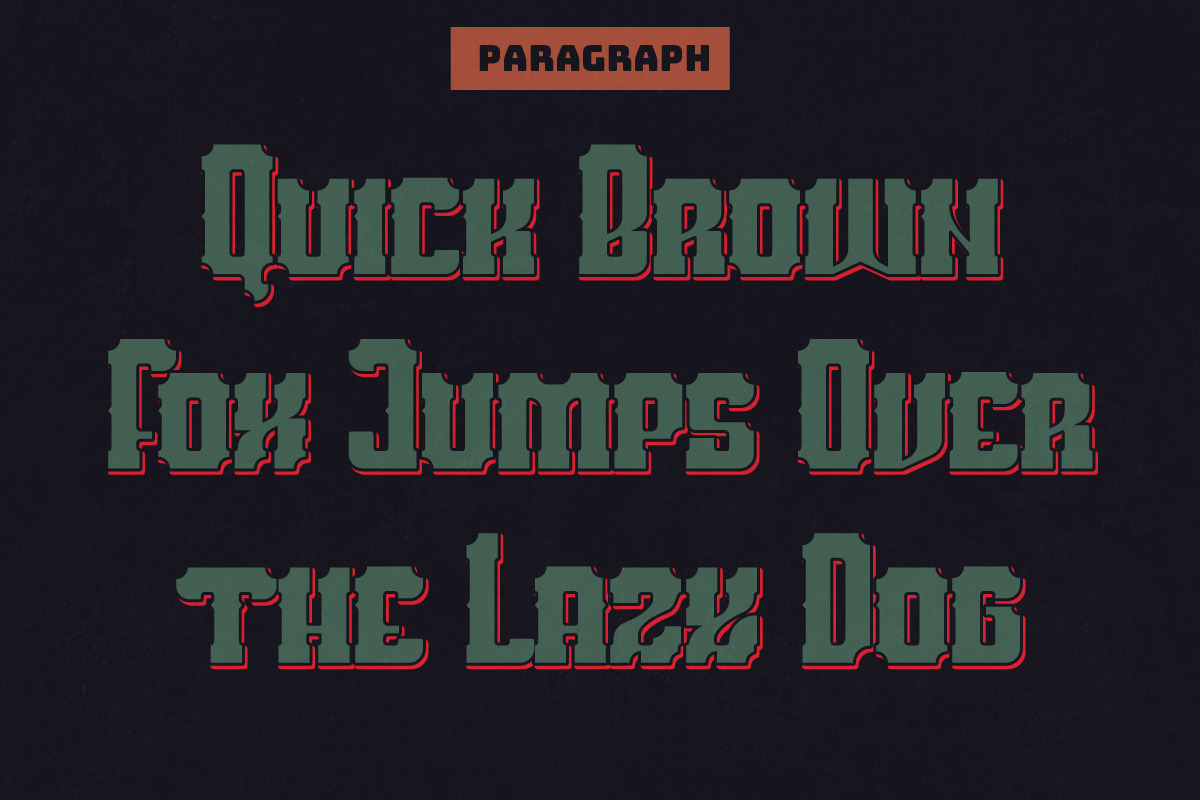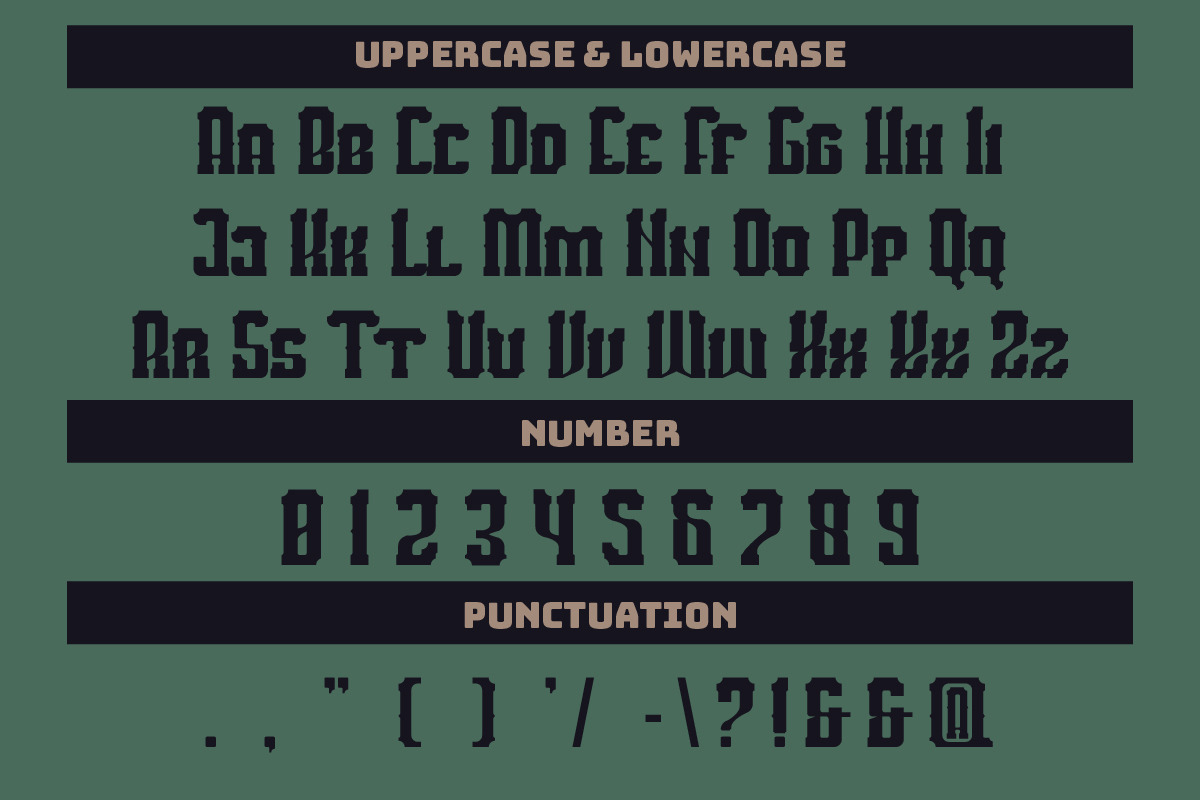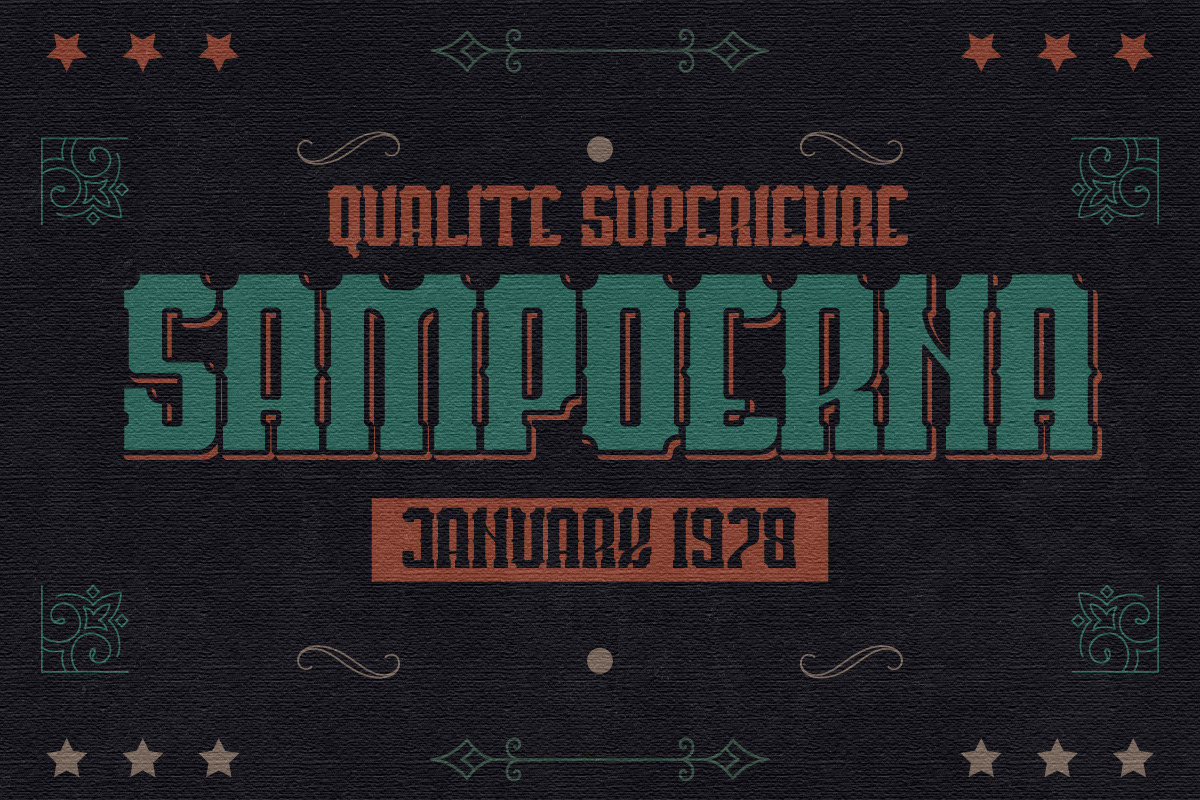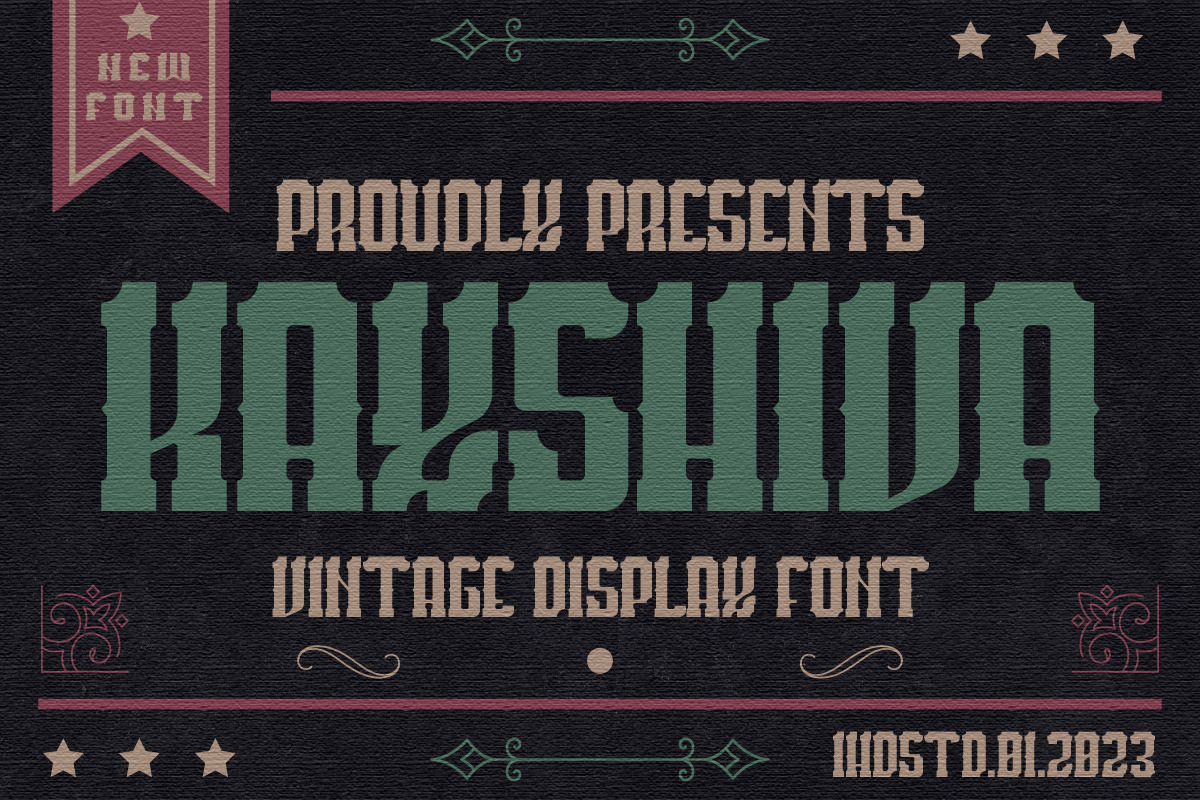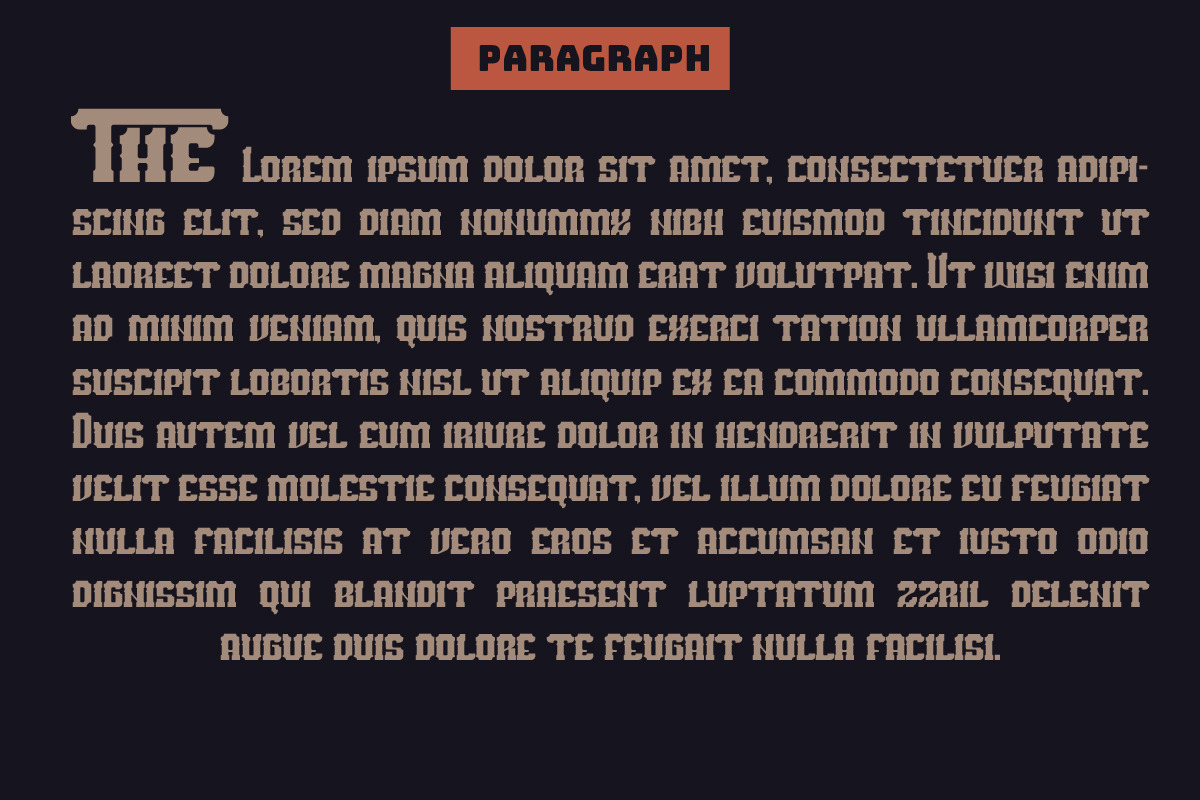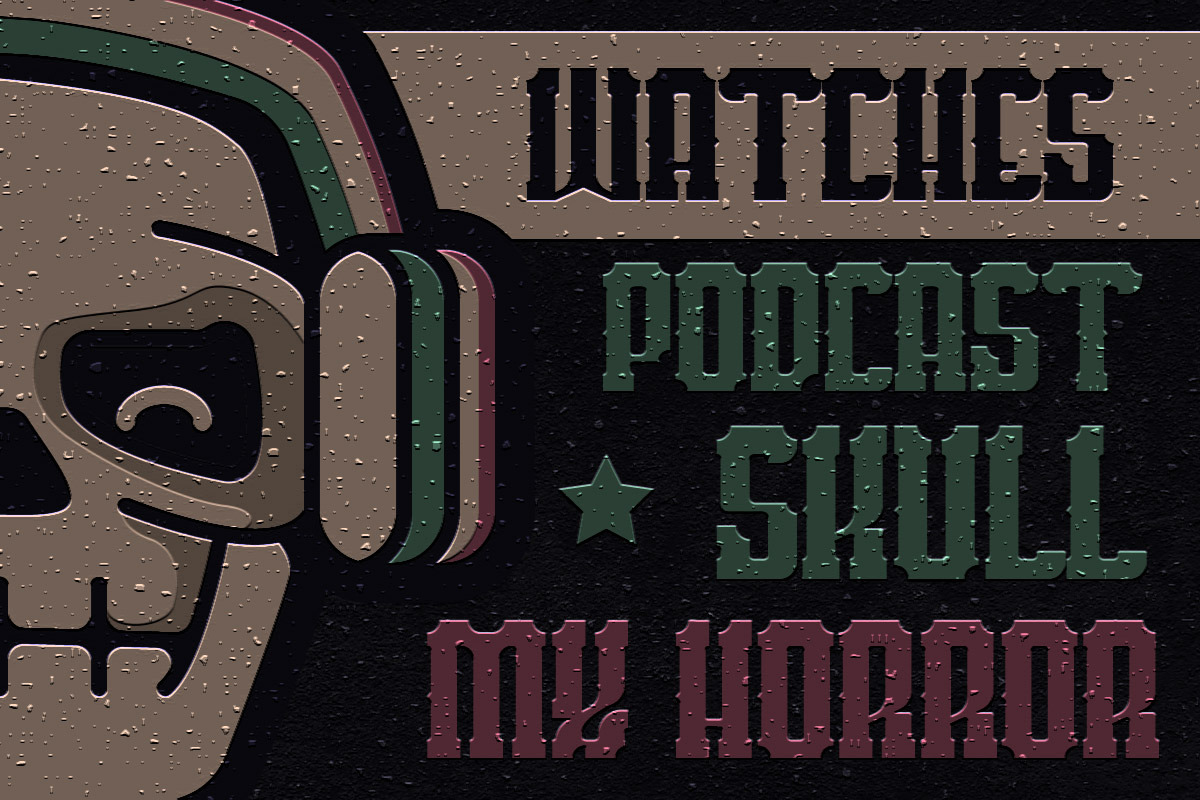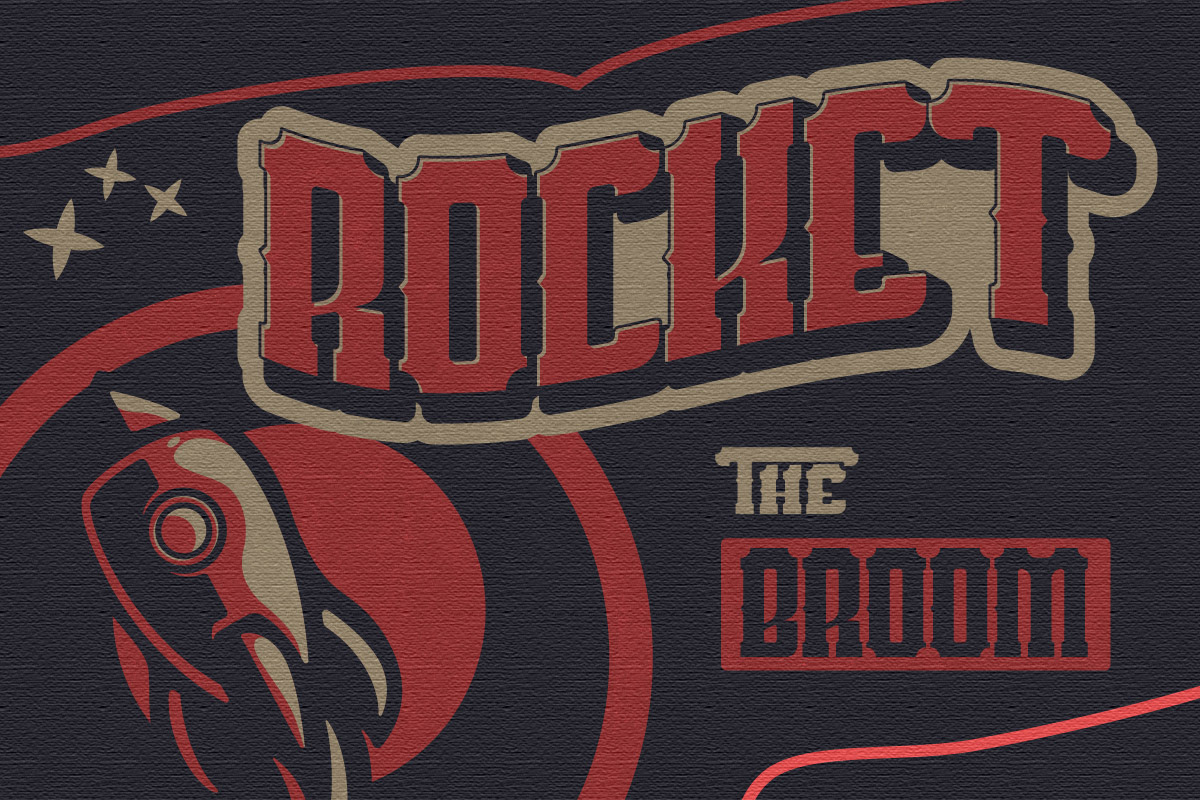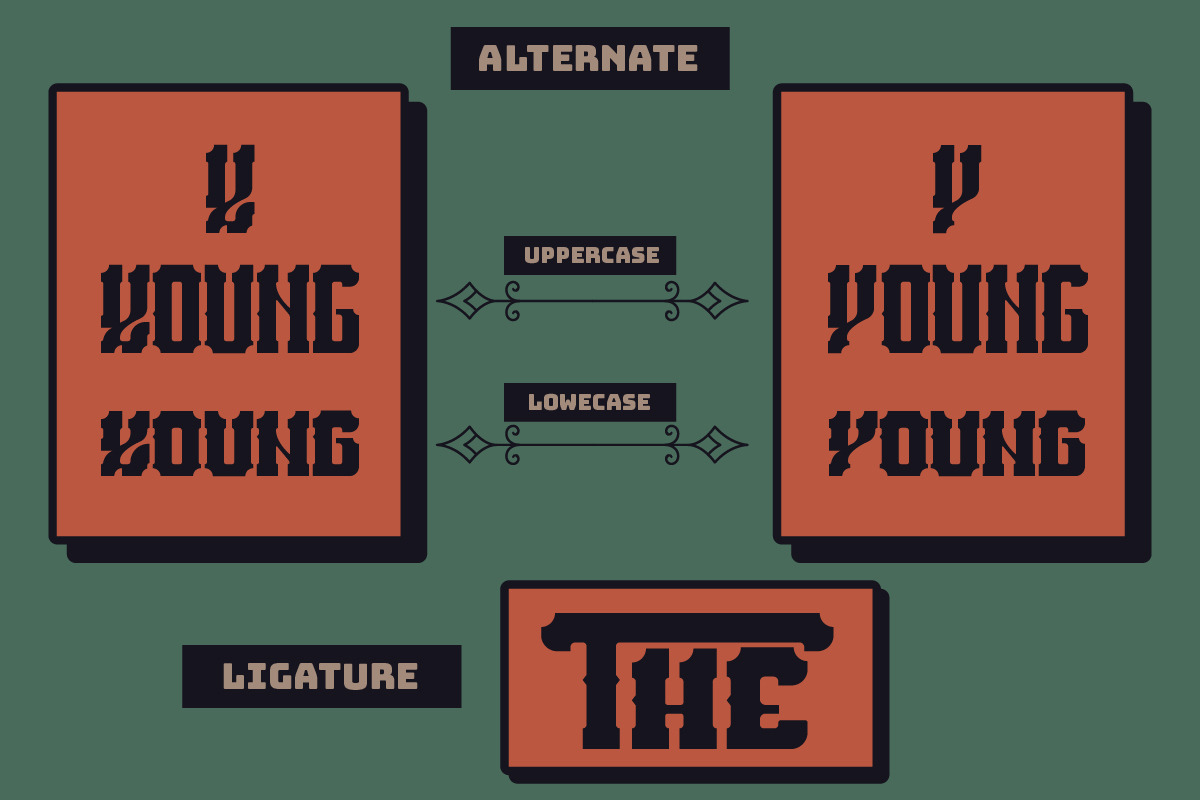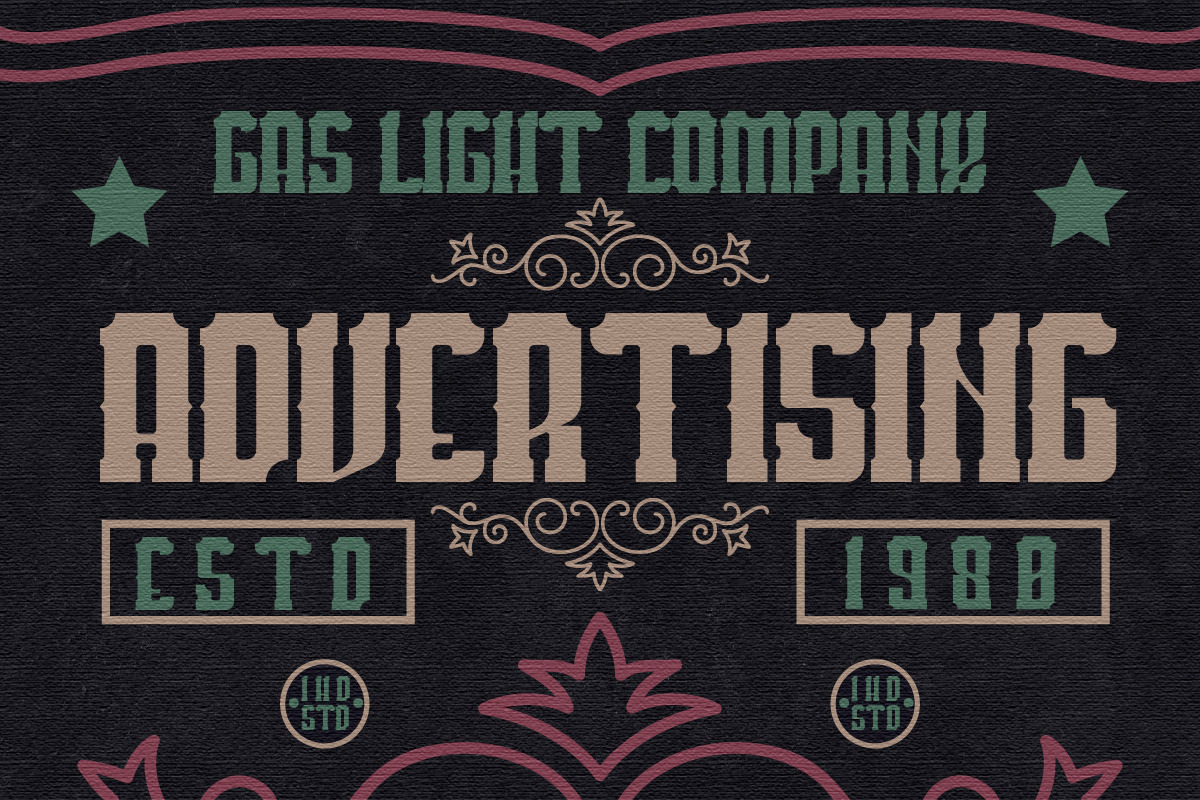
Kaishiva Display Font
KAYSHIVA VINTAGE font is our new item suitable for your Posters.
Great for Logo, Poster, Sticker, Jerseys, Invitation Card, Brochure, etc.